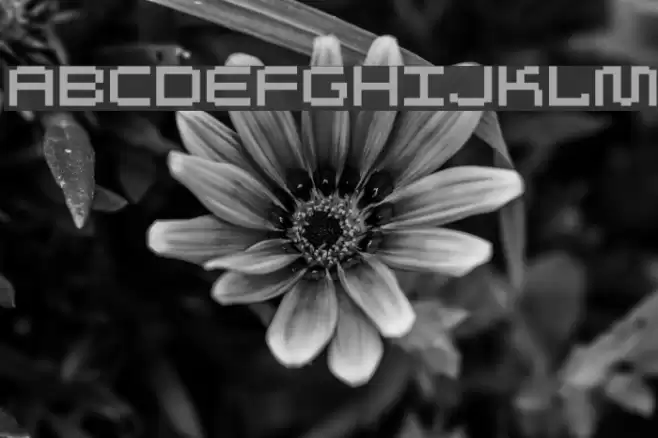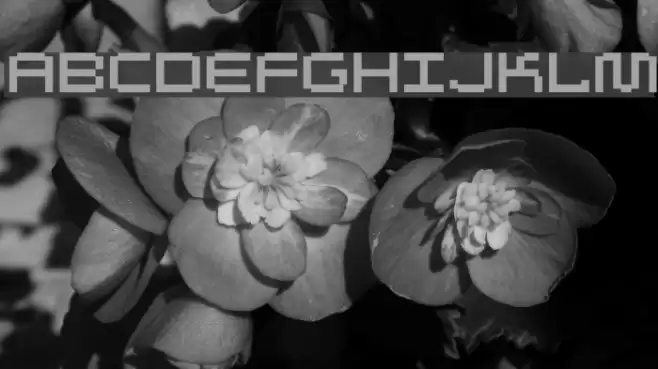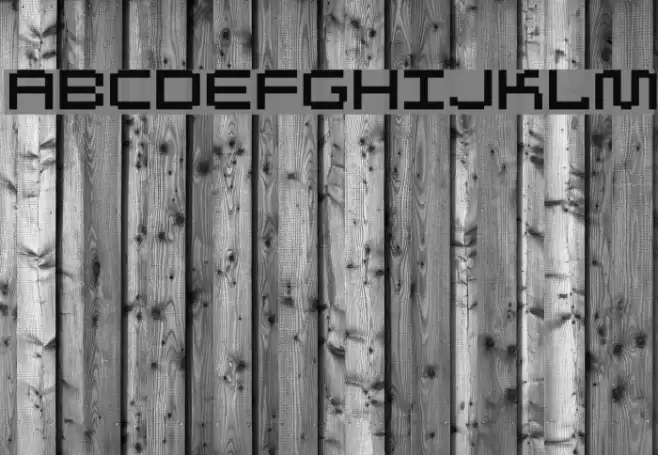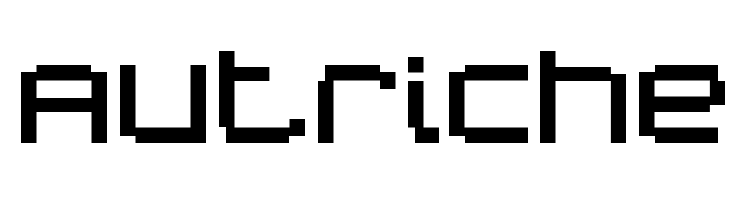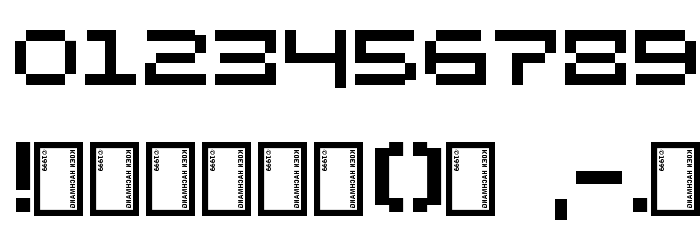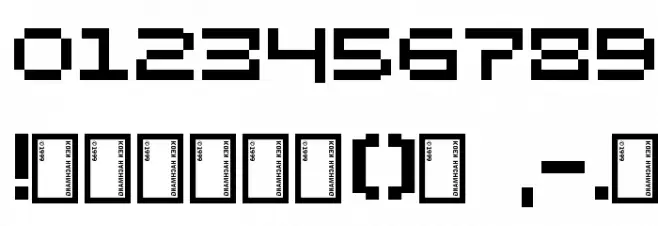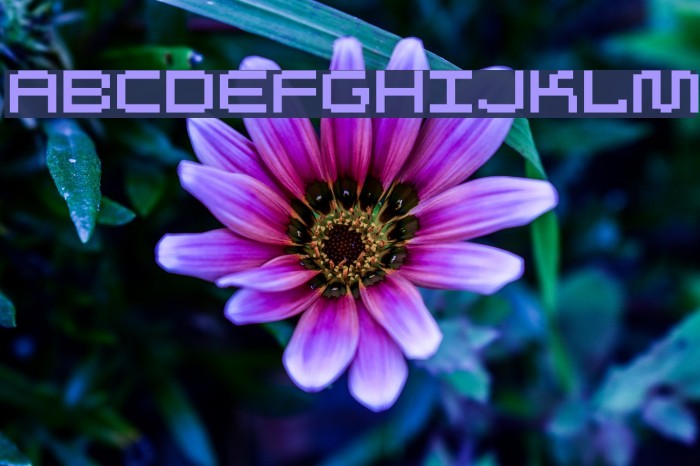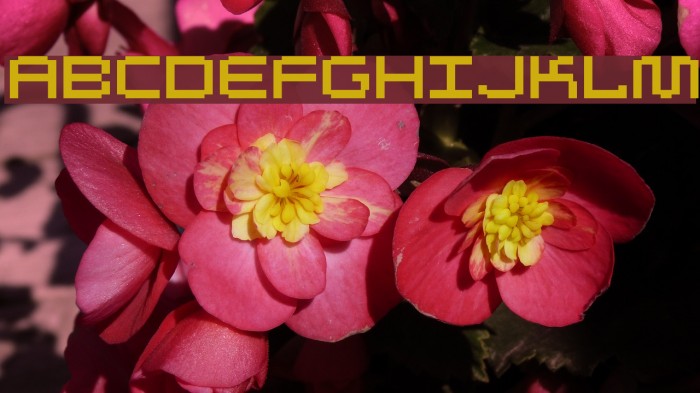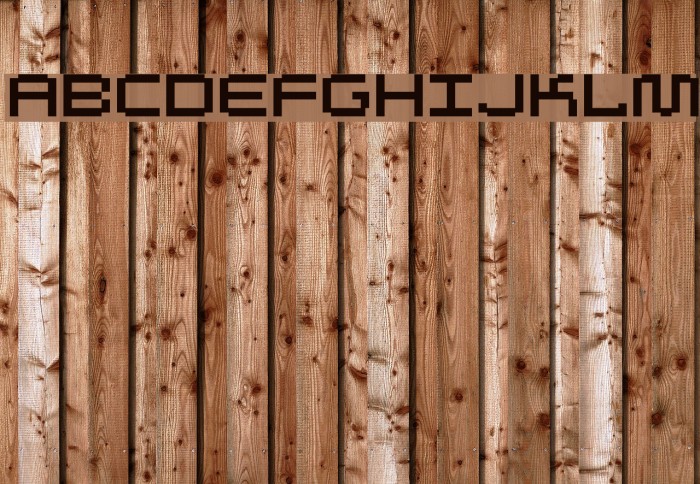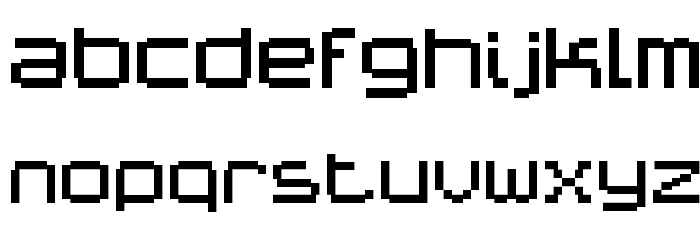
Autriche Font
Autriche Description
This font features a bold, geometric design with a pixelated, block-like appearance. Each character is constructed with a uniform thickness, creating a cohesive and structured look. The font's style is reminiscent of early digital displays and video game graphics, giving it a retro, nostalgic feel. The uppercase and lowercase letters maintain a consistent height and width, contributing to its monospaced nature. The numerals and special characters follow the same design principles, ensuring visual harmony across all elements. Its distinct, angular shapes make it highly legible and suitable for digital and print media.
A bold, geometric font with a pixelated, retro style from Pixel fonts.
- Proposed Projects: Ideal for video game design, digital art projects, retro-themed posters, and tech-related branding.
- Overall Style: Retro
- Use Case: Headlines, Logos, Digital displays